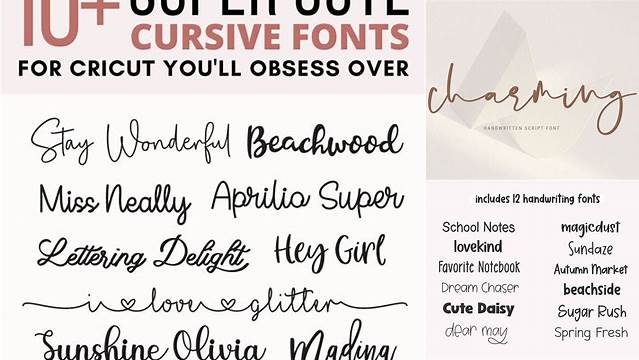
Charming Cursive Fonts: Dafont's Cutest Picks
Hey guys! Ever scrolled through Dafont and felt overwhelmed by the sheer number of cursive fonts? I get it! Finding that perfect, cute cursive font can feel like searching for a needle in a haystack. That's why I've put together this guide to help you navigate the world of Dafont's cutest cursive fonts. Whether you're working on a wedding invitation, a logo, or just sprucing up your social media posts, a beautiful cursive font can add that touch of elegance and personality you're looking for. So, let’s dive into the lovely world of cursive fonts and discover some real gems!
What Makes a Cursive Font Cute?
So, what exactly makes a cursive font cute? It's a pretty subjective thing, but there are definitely some key elements that contribute to that adorable vibe. Think about delicate strokes, playful swashes, and a generally whimsical feel. Some cute cursive fonts have a hand-lettered quality, making them feel personal and authentic. Others are more refined and elegant, but still manage to maintain a sense of sweetness. It really comes down to the overall aesthetic and how it resonates with your project. When you’re browsing through Dafont's cutest cursive fonts, consider the context in which you’ll be using the font. A font that’s cute for a baby shower invitation might not be the best choice for a business logo, for example. The key is to find a balance between cuteness and readability, ensuring that your message is both charming and clear.
The Psychology of Cute Fonts
Have you ever wondered why cute fonts make us feel good? It's actually a pretty interesting bit of psychology! Cute fonts often evoke feelings of nostalgia, innocence, and warmth. They can remind us of childhood memories, handwritten notes from loved ones, or even fairytale stories. This emotional connection can be incredibly powerful, making cute cursive fonts a fantastic choice for projects that aim to create a positive and welcoming atmosphere. Think about the brands that use cute fonts in their logos or marketing materials – they’re often trying to convey a sense of approachability and friendliness. When you choose a cursive font that has that cute factor, you're not just selecting a typeface; you're tapping into a whole range of emotions and associations. This is especially important for projects that are personal or sentimental, such as wedding invitations, thank-you cards, or even social media graphics that you want to make a little extra special.
Balancing Cuteness with Readability
Okay, guys, let's talk about a crucial aspect of choosing cute cursive fonts: readability. It’s super tempting to go for the most elaborate, swirly font you can find, but if nobody can actually read your message, what’s the point? The best cute cursive fonts strike a balance between visual appeal and clarity. Look for fonts that have clearly defined letterforms and consistent spacing. Avoid fonts where the letters are so intertwined or embellished that they become difficult to decipher. This is especially important for longer texts or headlines. For shorter phrases or titles, you might have a little more leeway to experiment with fancier fonts, but always prioritize readability. Think about the size at which the font will be used, too. A font that looks perfectly readable at a large size might become a jumbled mess when it’s shrunk down. So, always test your chosen Dafont's cutest cursive fonts in different sizes and contexts to make sure they’re still legible.
Exploring Dafont's Cursive Collection
Free vs. Paid Cursive Fonts
So, what's the deal with free versus paid cursive fonts? On platforms like Dafont, you'll find a huge range of both, and the choice often comes down to your budget and specific needs. Free fonts can be fantastic, especially for personal projects or when you're just starting out. There are tons of incredibly talented designers who generously offer their fonts for free, and you can definitely find some real gems among them. However, there are also some limitations to consider. Free fonts might not always have the same level of polish or variety as paid fonts. They might have fewer weights (like bold or italic versions) or limited character sets (missing certain symbols or accented letters). Paid fonts, on the other hand, often offer a more comprehensive package, with multiple weights, extensive character sets, and sometimes even additional design elements like swashes or alternates. They also tend to be more rigorously tested and refined, which can result in better performance and readability. If you're working on a professional project or a brand identity, investing in a paid cute cursive fonts can be a worthwhile investment. But for many personal projects, the free options on Dafont are more than enough to create something beautiful.
Top Cute Cursive Font Styles
Okay, let's get into the fun stuff! There are so many different styles of cute cursive fonts out there, it’s like a candy store for designers. We’ve got everything from elegant and refined scripts to playful and whimsical handwritten styles. And, of course, Dafont has a ton of options in each category. One popular style is the classic calligraphy-inspired cursive, which is perfect for wedding invitations or formal events. These fonts often have beautiful, flowing strokes and a timeless feel. Then there are the more modern and casual cursive fonts, which are great for logos, branding, or social media graphics. These fonts might have a slightly rougher texture or a more hand-lettered look. And let's not forget the cute and quirky cursive fonts, which are ideal for children's books, party invitations, or anything that needs a touch of whimsy. When you're choosing a cursive font style, think about the overall tone and message you want to convey. A sophisticated script will feel very different from a playful handwritten font, so choose wisely!
Calligraphy-Inspired Fonts
Let’s talk about calligraphy-inspired cute cursive fonts! These fonts are all about elegance and sophistication, drawing inspiration from the beautiful art of hand-lettered calligraphy. They often feature flowing strokes, graceful curves, and a sense of timeless beauty. These Dafont cursive fonts are perfect for projects that call for a touch of formality and refinement, such as wedding invitations, stationery, and event signage. Think about the classic, sweeping letterforms you see in traditional calligraphy – that’s the kind of vibe these fonts aim to capture. When you’re working with calligraphy-inspired fonts, pay attention to the spacing between letters and words. These fonts often have intricate details that can get lost if the spacing is too tight. Also, consider using these fonts sparingly – they can be very impactful, but too much calligraphy can overwhelm a design. A well-chosen calligraphy font can add a touch of luxury and sophistication to your project, making it feel extra special. When browsing Dafont's offerings, look for fonts that mimic the look of pointed-pen or brush calligraphy for an authentic feel.
"Lemon Jelly" Font Review
Next up, let's chat about “Lemon Jelly,” another super popular contender in the world of cute cursive fonts on Dafont. This font has a playful and energetic feel, like a burst of sunshine on a page! It's perfect for projects that need a dose of fun and personality, such as party invitations, social media graphics, or even a quirky logo. The letterforms in “Lemon Jelly” are bold and bouncy, with rounded edges and a slightly irregular baseline that adds to its charm. It’s a true handwritten-style font, with a natural and organic feel. One of the things that makes “Lemon Jelly” stand out is its sheer exuberance. It’s a font that doesn’t take itself too seriously, and it’s sure to bring a smile to anyone’s face. However, it’s important to use “Lemon Jelly” judiciously, as its boldness can be overwhelming in large blocks of text. I recommend using it primarily for headlines and titles, paired with a simpler font for body text. If you’re looking for a Dafont cursive font that’s bursting with personality, “Lemon Jelly” is definitely one to check out!
"Bromello" Font Review
Let's dive into